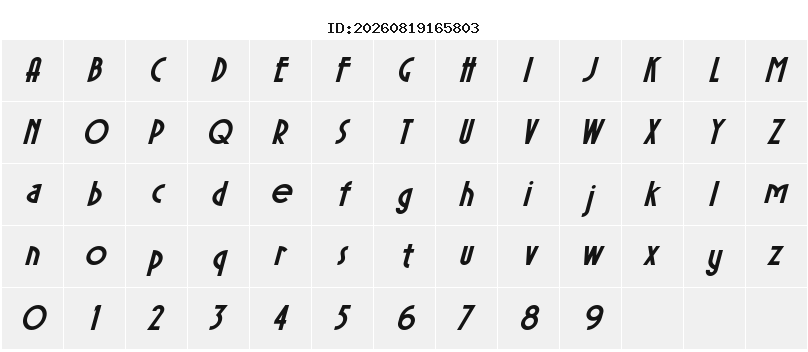
Sierra Madre Preview
• Font Name: Sierra Madre
• Font ID: Sierra Madre Bold Italic:Version 1.50
• Full Font Name: Sierra Madre Bold Italic
• Version: Version 1.50 December 1, 2013
• PostScript Name: SierraMadre-BoldItalic
• Character Count: 242
• Designer: Neale Davidson
• Manufacturer: Neale Davidson
About Sierra Madre.otf
Sierra Madre.otf is a modern, elegant sans-serif font designed for ultimate readability and visual harmony. Perfect for branding, headlines, web design, and print materials.